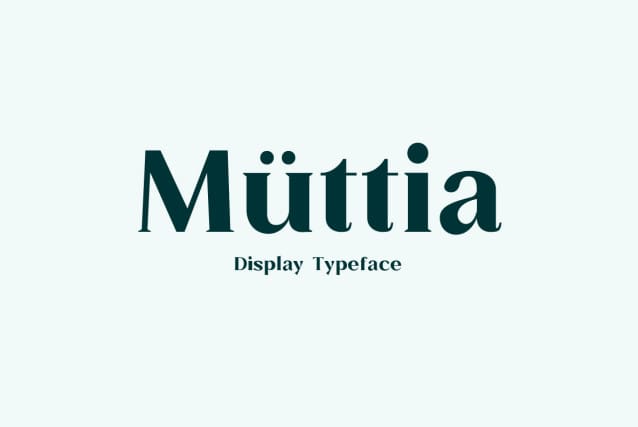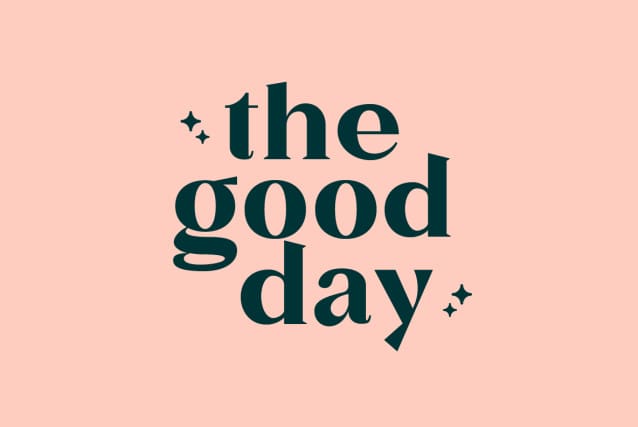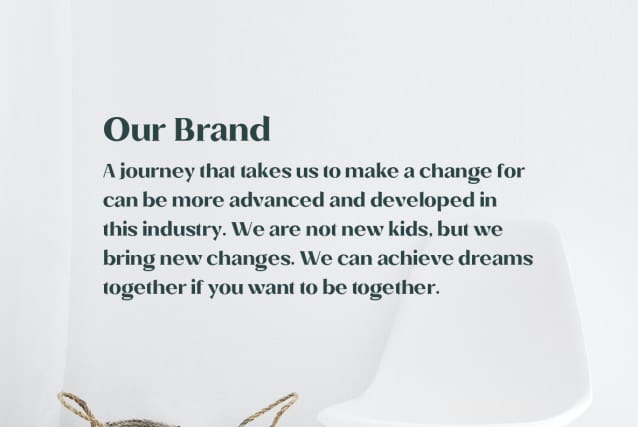
Muttia Display Typeface
Muttia Display Typeface is a beautifully distinctive Serif typeface that will add instant elegance to any branding, advertising, logo, packaging, title, or headline. You don’t need to overdo it with embellishments; just use the fonts in different sizes and layouts, and you’ll have a truly stunning piece of art!